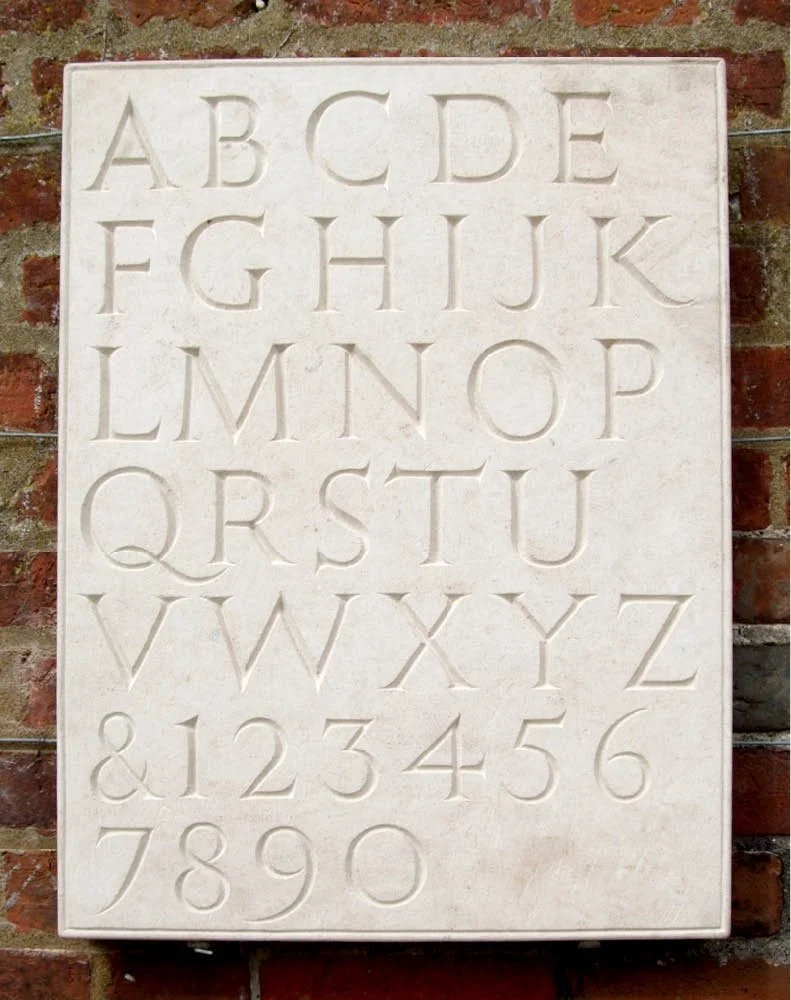
Alphabet by Peter Foster
Ancaster hard white stone
“I have been drawing and carving letters since I was a child, influenced by Eric Gill and Ralph Beyer. I am still fascinated by the shape of hand-carved letters. They seem able to say something profound, beyond the message they are arranged to spell out. I carved an alphabet to show this power and beauty, away from script of any sort.”